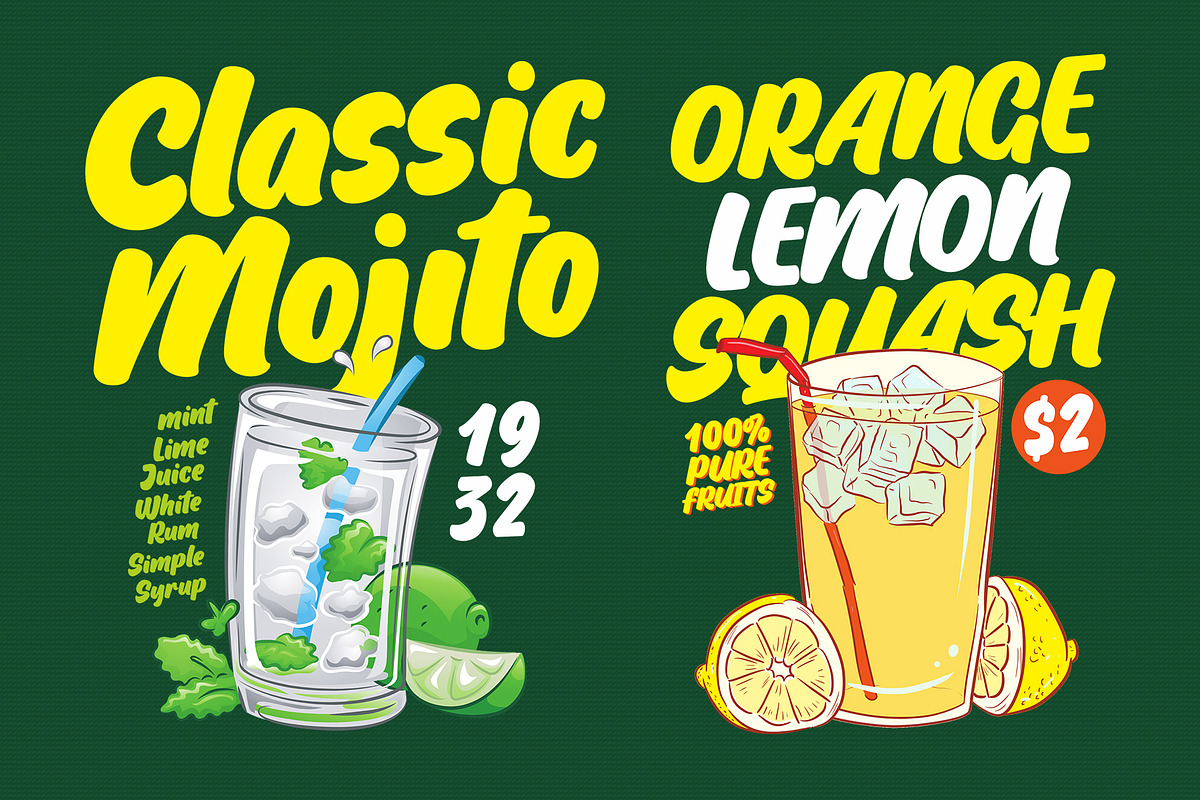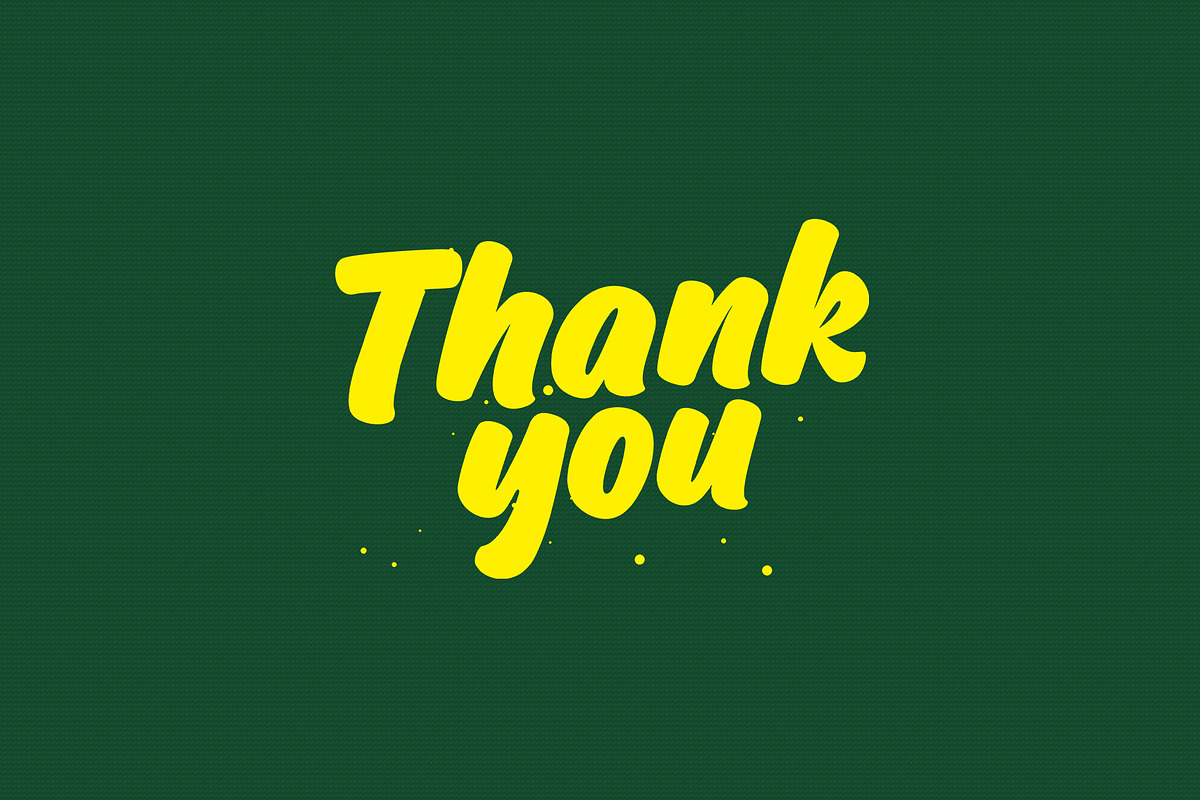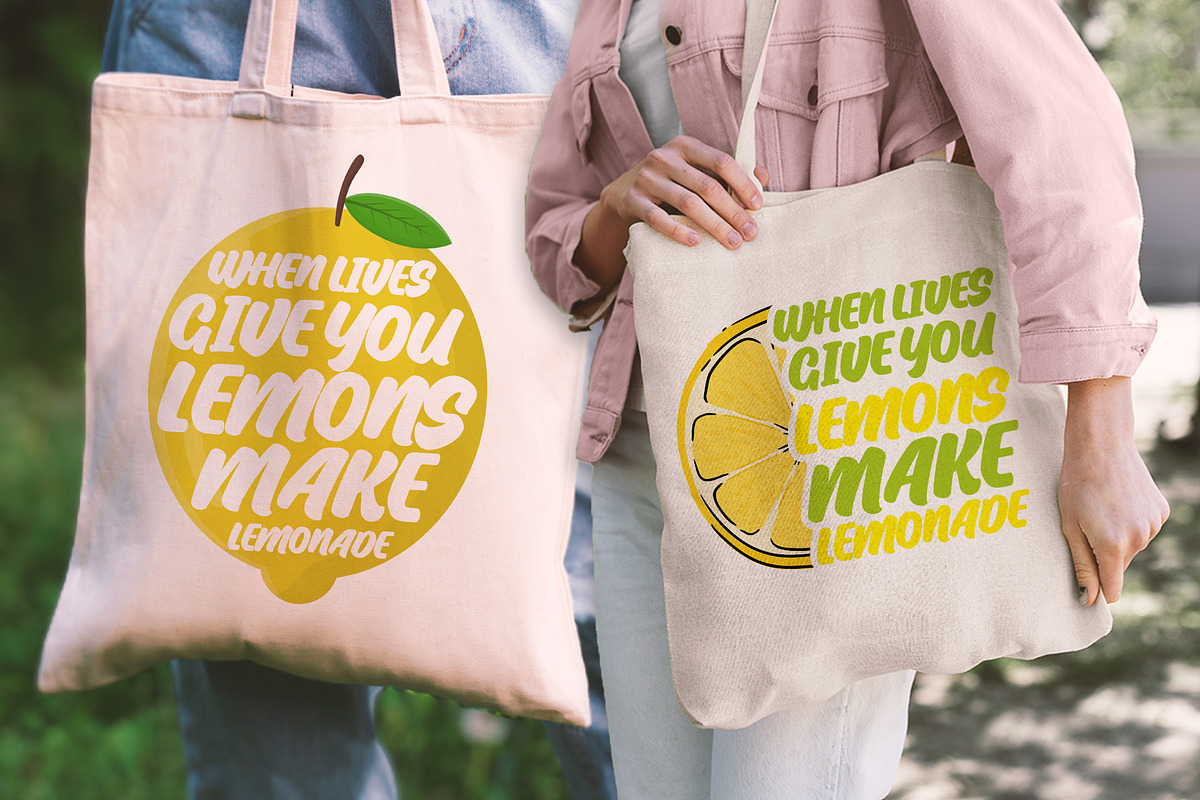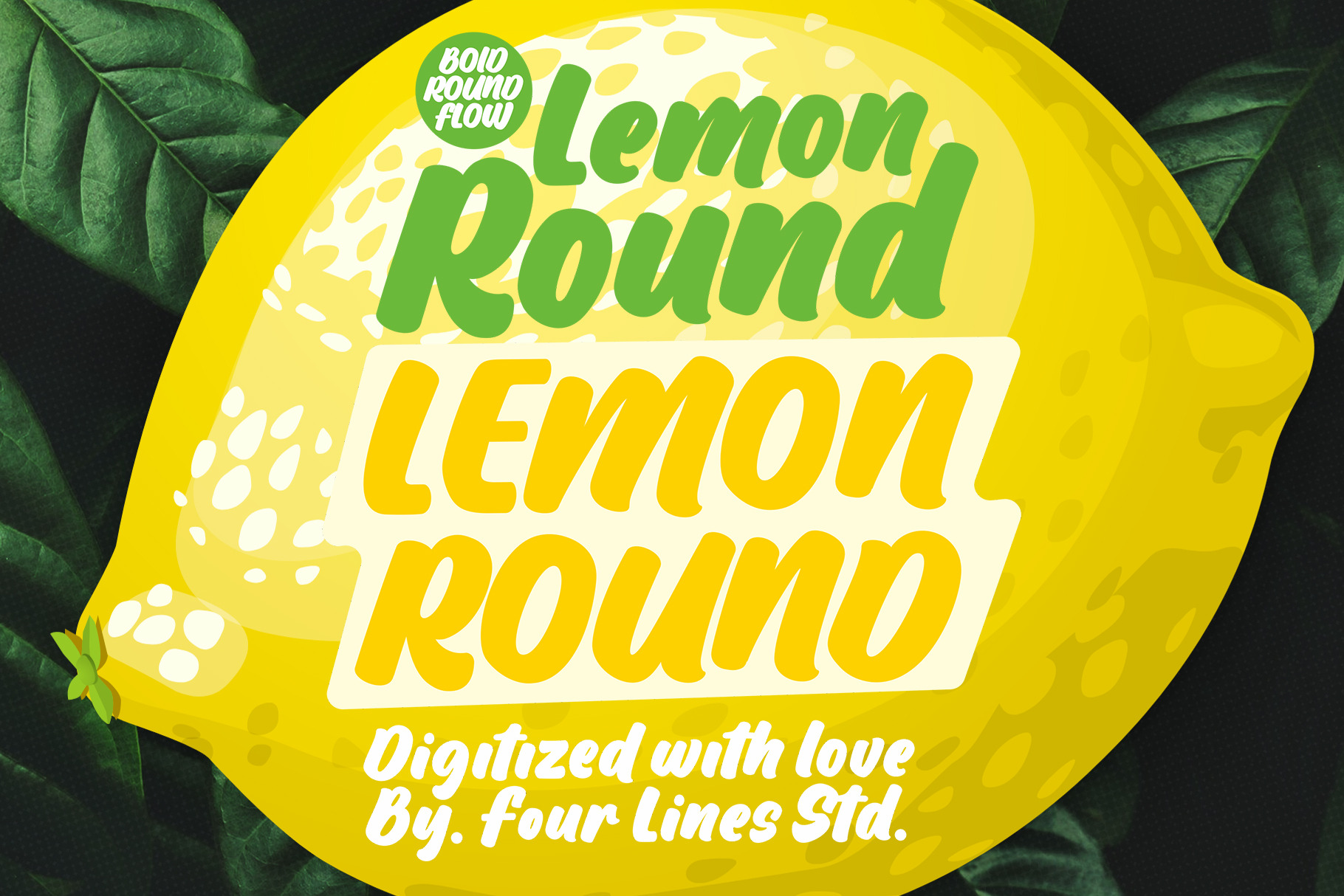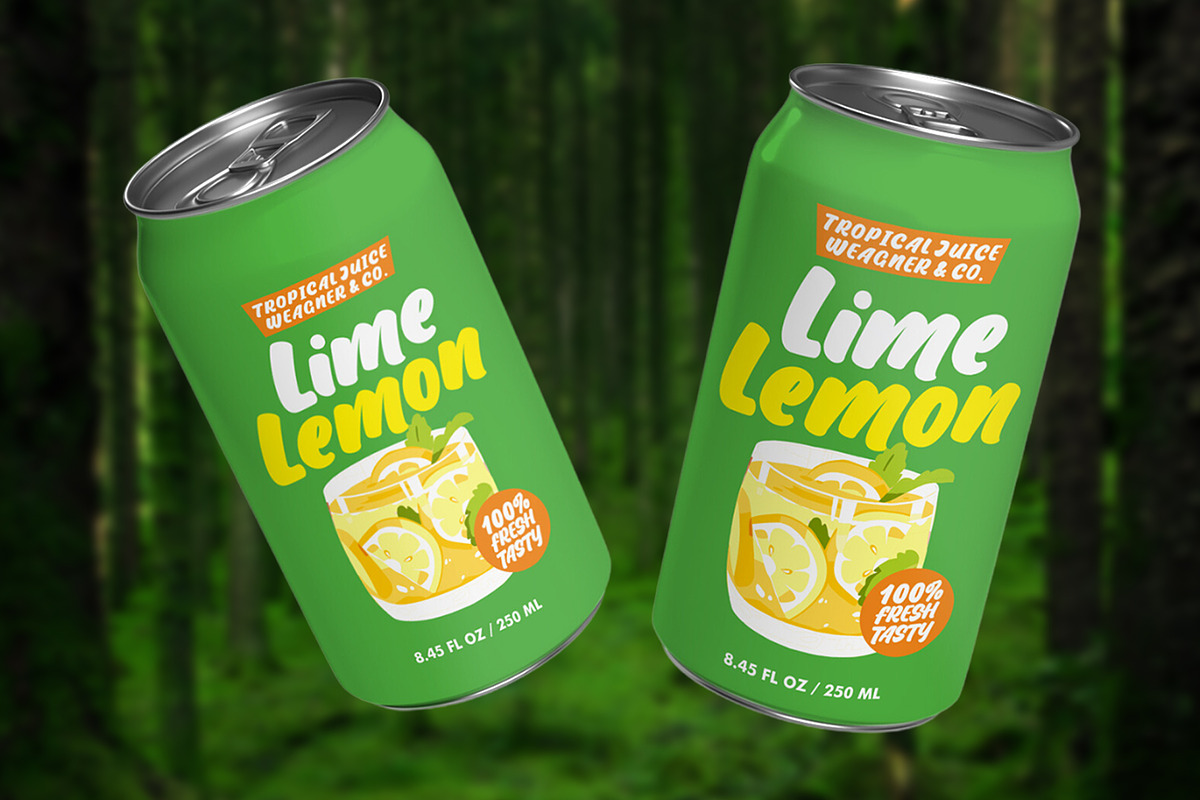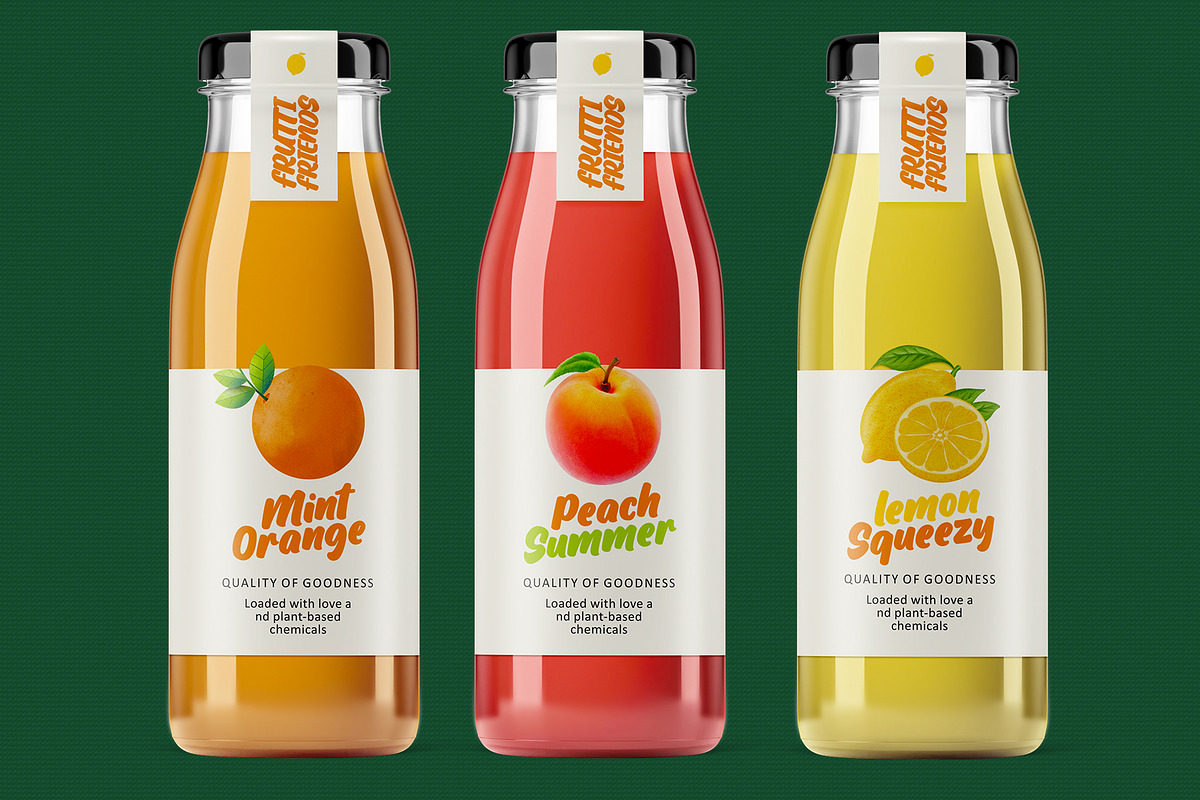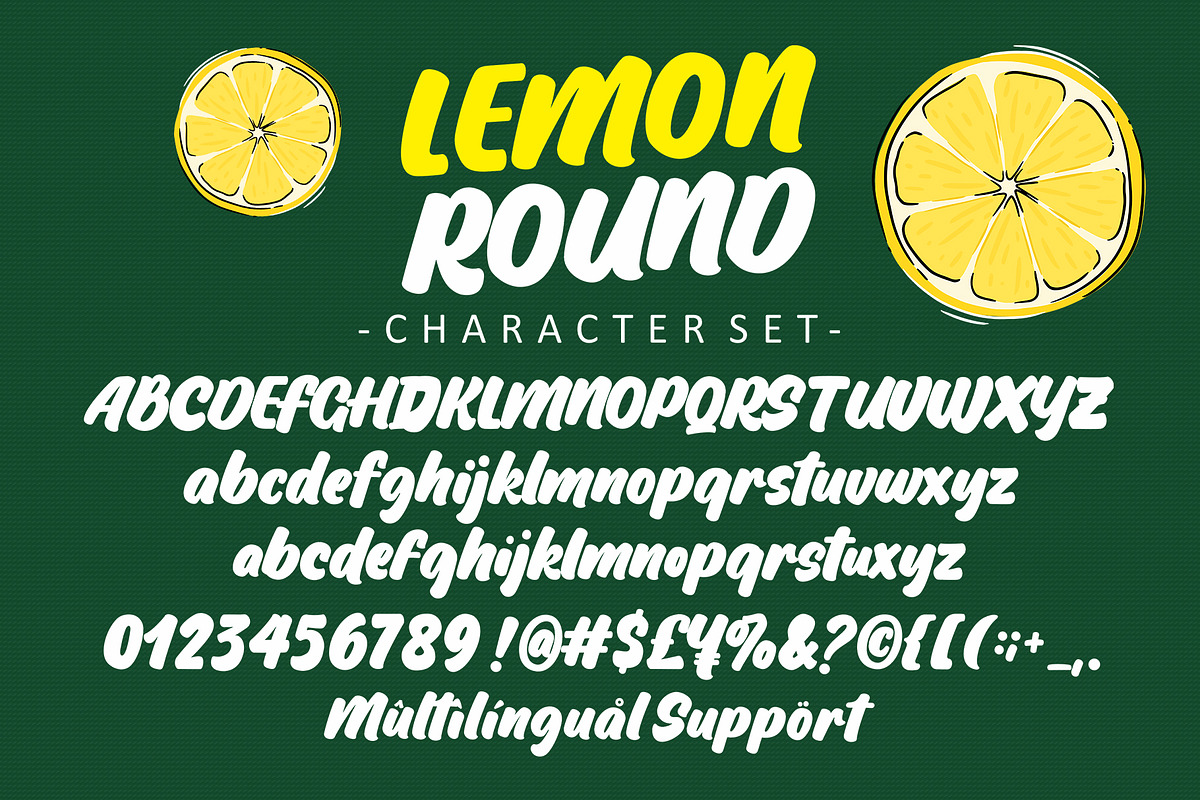
Lemon Round - Bold Display Font
become the voice of your brand, capturing attention, and leaving a lasting impression on your target audience. The versatility of this font is allowing you to evoke a range of emotions, from warmth and familiarity to excitement and curiosity.